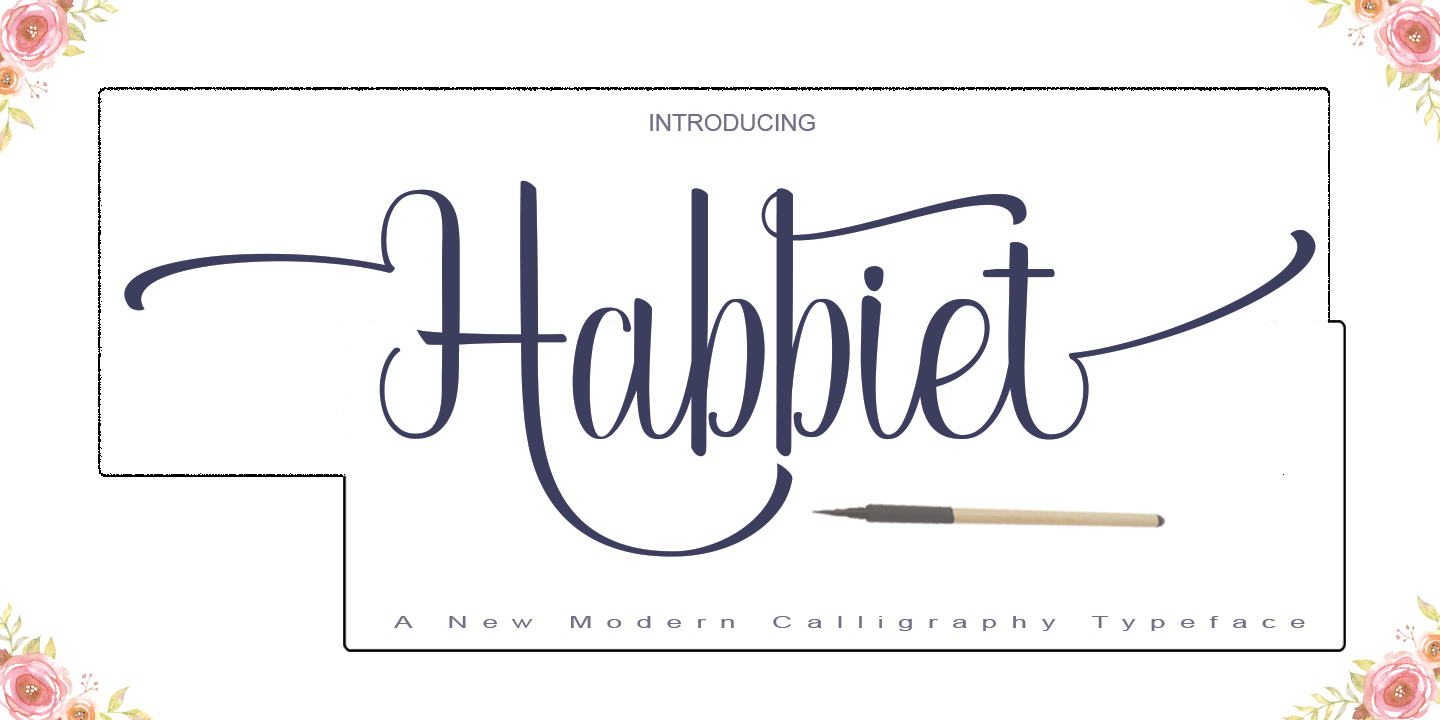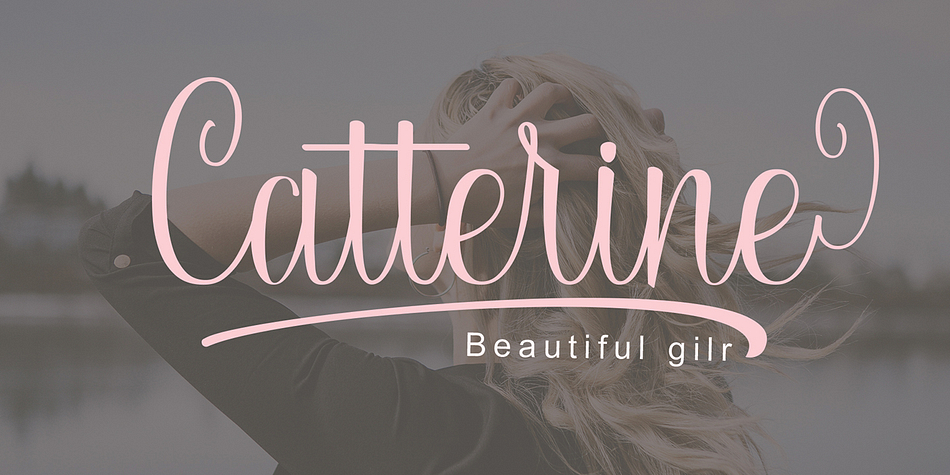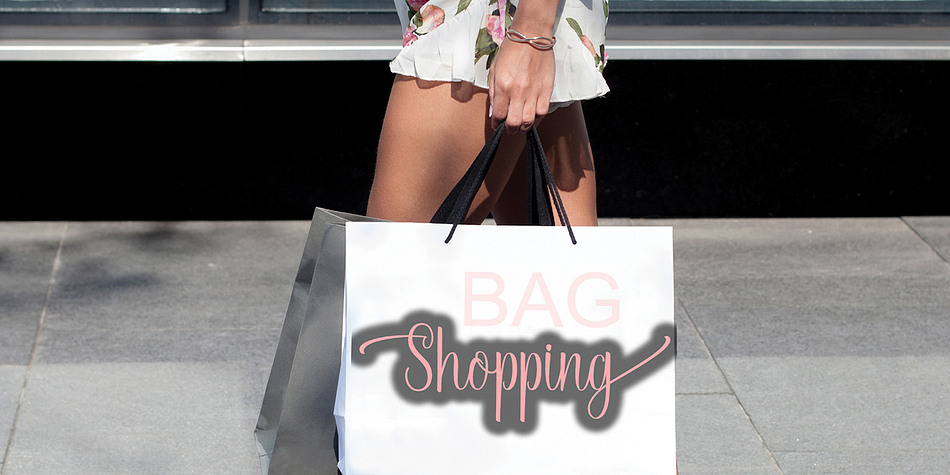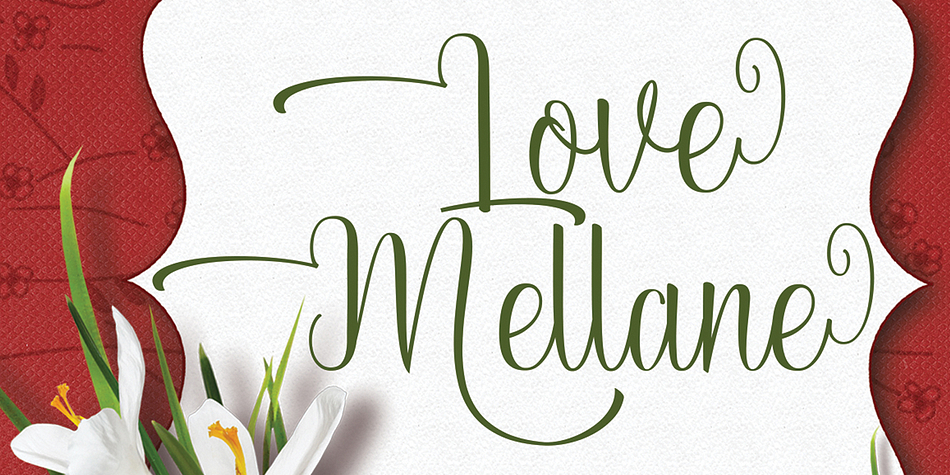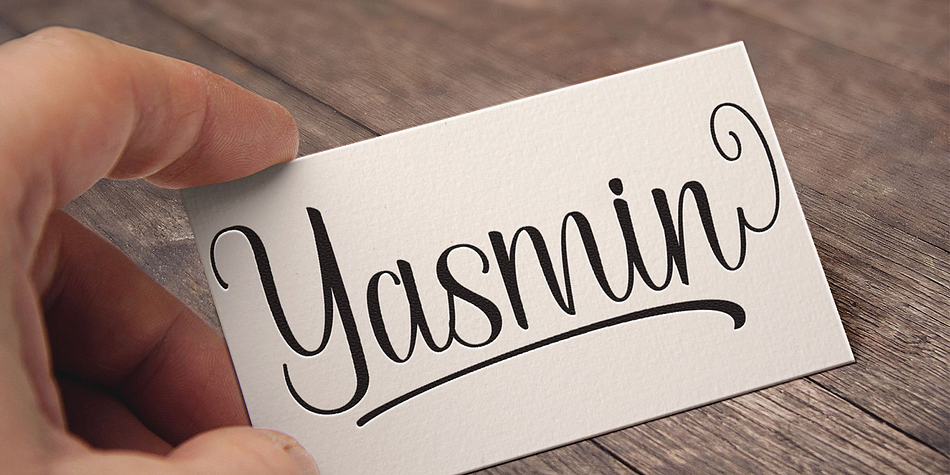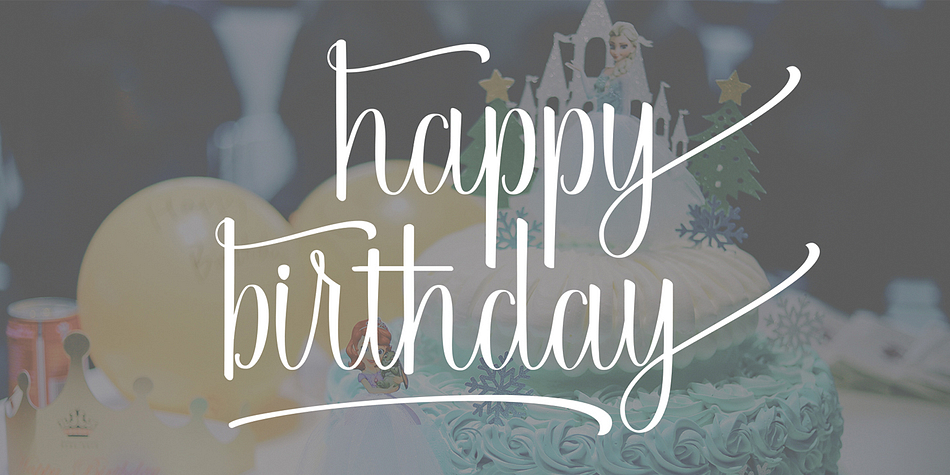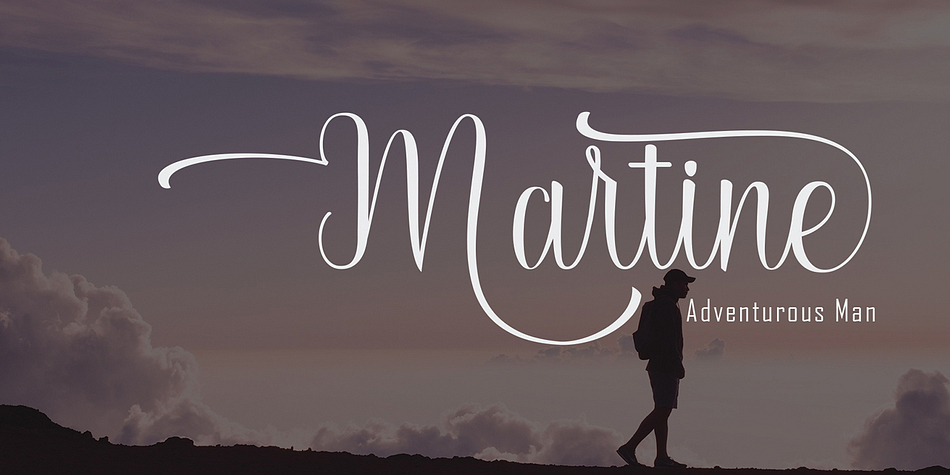
Habbiet
Habbiet is a hand drawn and modern calligraphy font family published by pollem.Co.
Habbiet Script
Habbiet Font Script regular stylish calligraphy that have a varied base line, fine lines, classic and elegant touches. Can be used for various purposes.Such as title, signature, logo, wedding invitation, t-shirt, letterhead, nameplate, label, news, poster, badge etc.
Habbiet Font Script displays 413+ glyphs and 197 alternate characters. Includes initial letters and terminals, alternatives, ligatures and multiple language support.
The Features of this fonts is:
* Standart ligatures
* Stylistic Alternates
* Swash